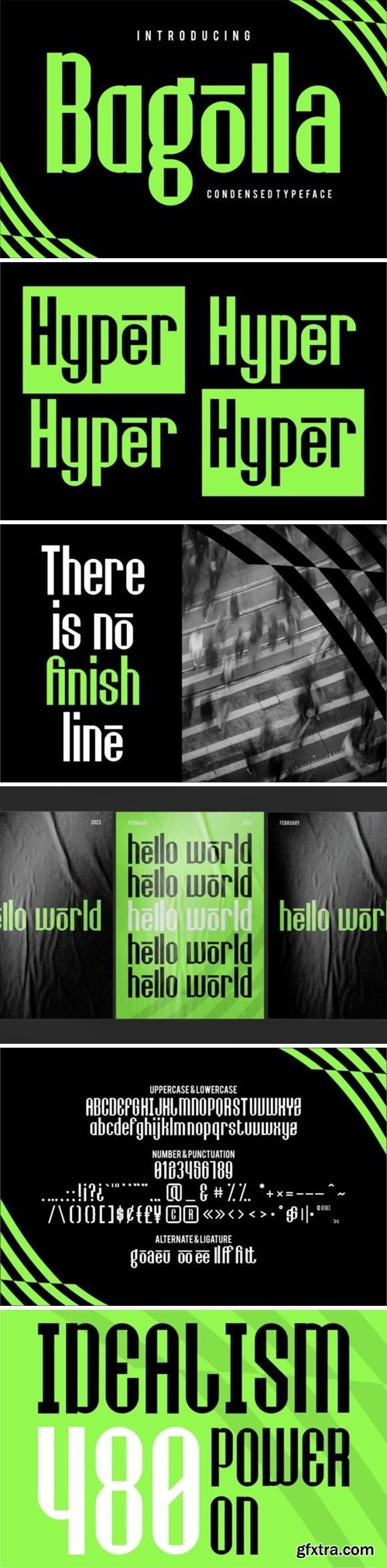
宝尔洛字体
Bogolla Condensed Font is a compact and straightforward typeface. With a condensed style, it keeps things neat and tidy. Perfect for projects where space is limited or when you want a clean and modern look. Use Bogolla Condensed for a crisp and efficient typographic solution that adds a touch of sleek simplicity to your designs.